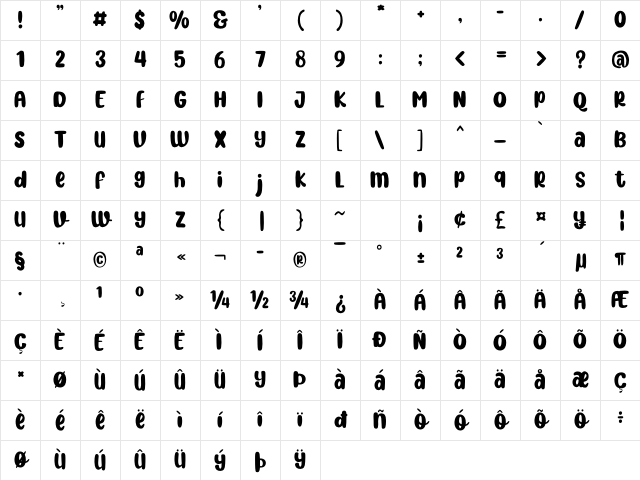
Honey and Raspberries Regular
Design Context for Honey and Raspberries
Honey and Raspberries is a composed and adaptable typeface that performs quietly and consistently across a wide range of design contexts.
Pro Tip: Use Honey and Raspberries in both headline and body roles to test its range before committing to a single application.